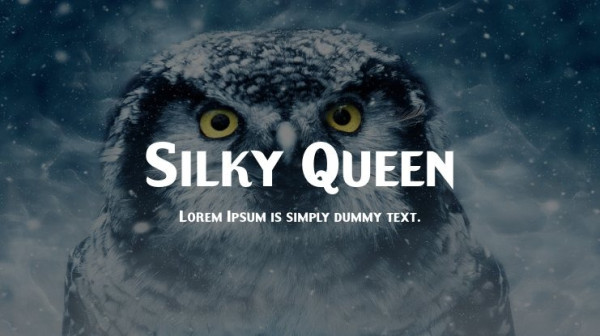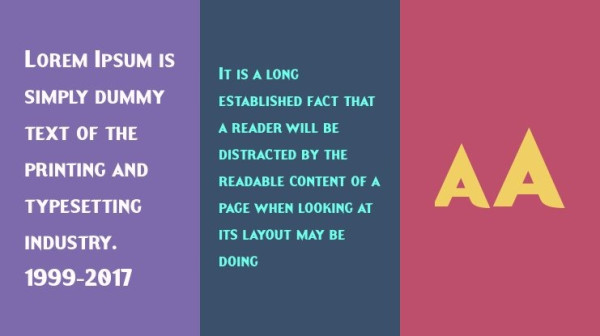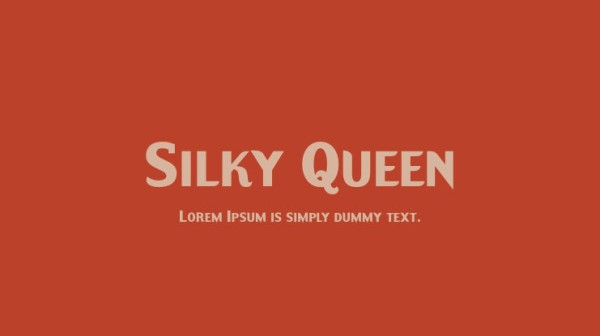
Silky Queen Font
Silky Queen Font, It would be a perfect choice to design posters, affiches, logos, t-shirt and magazine prints, eye-pleasing typographic designs and more.